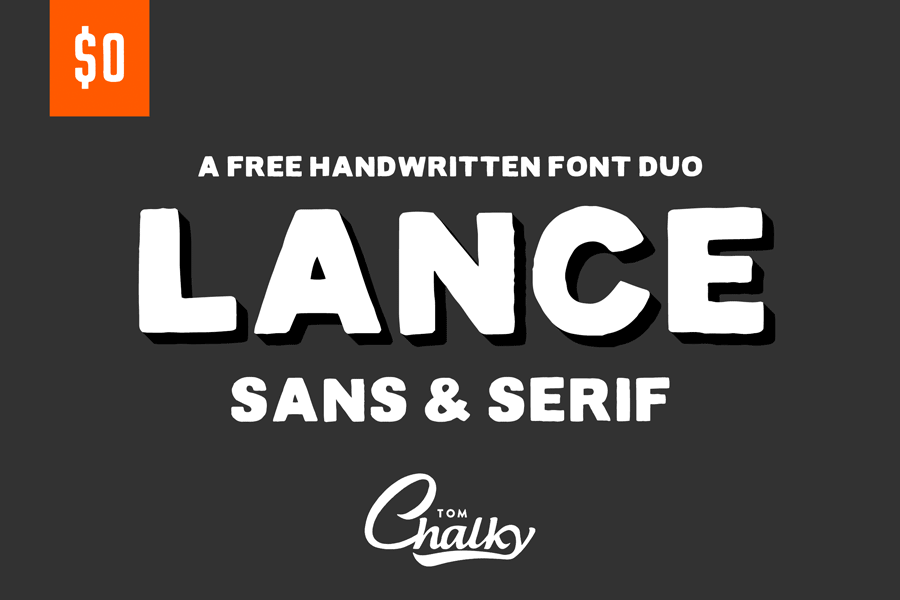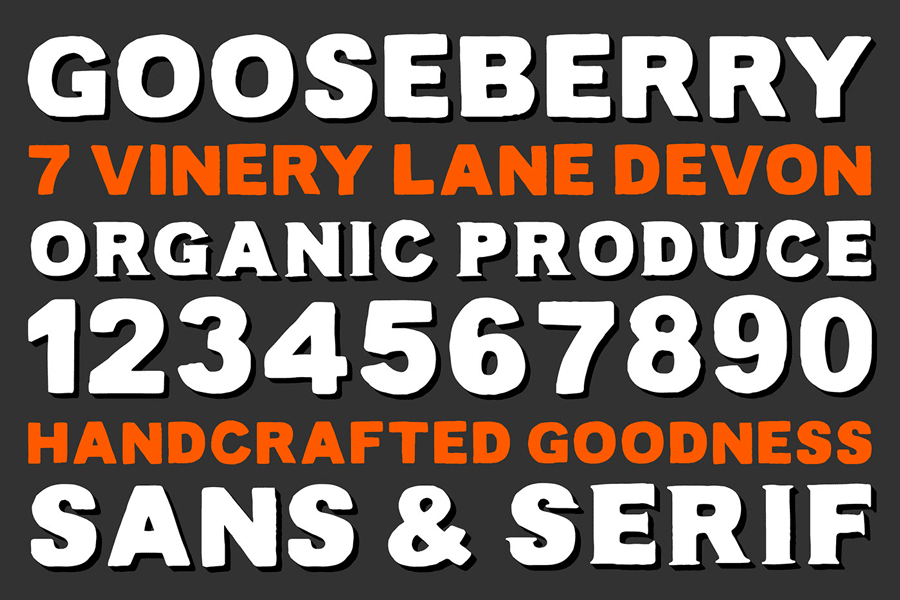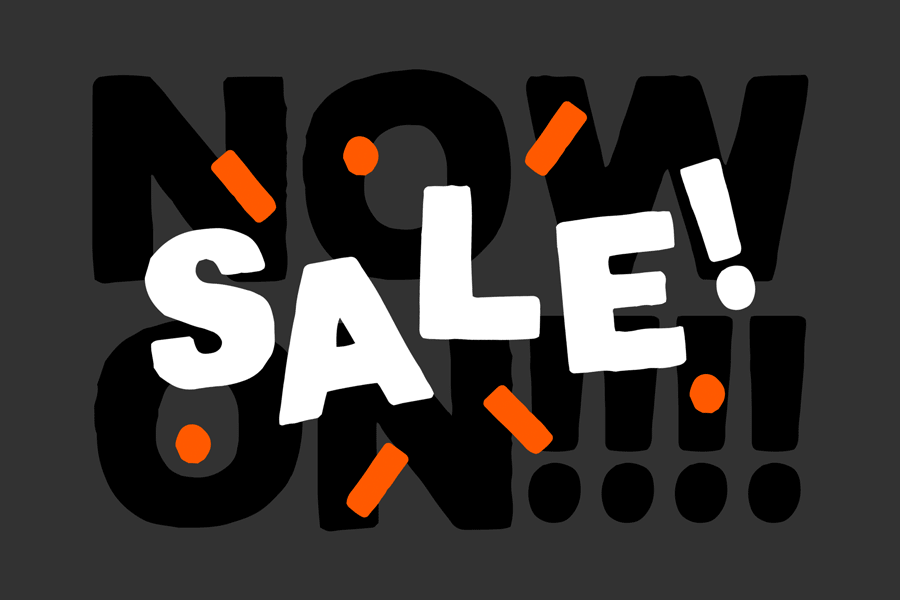
Lance is an all capitalised display style typeface which comes with sans serif and serif style. It’s blocky and bold, its rugged feel giving a sense of handwriting. Lance can be a fun font to use for producing playful typography style.
The sans and serif style perfectly complements each other, so you can use them both together. You can download this font for free and use it on both personal and commercial projects.